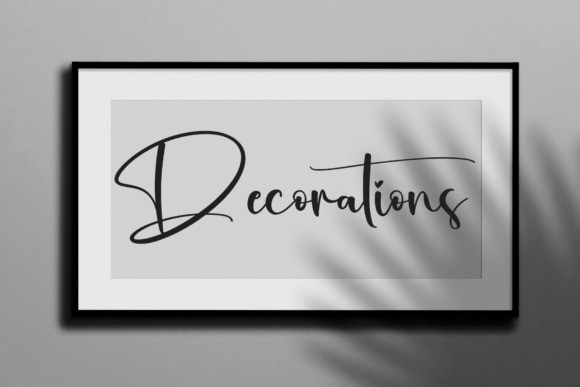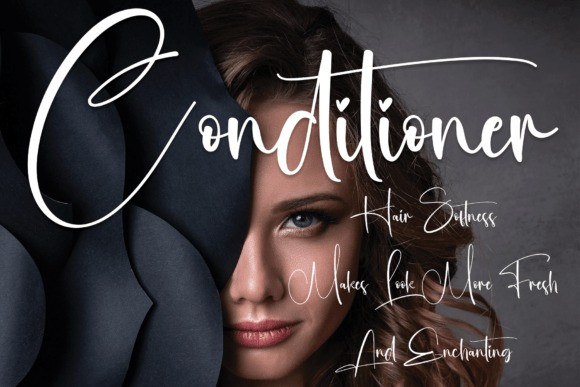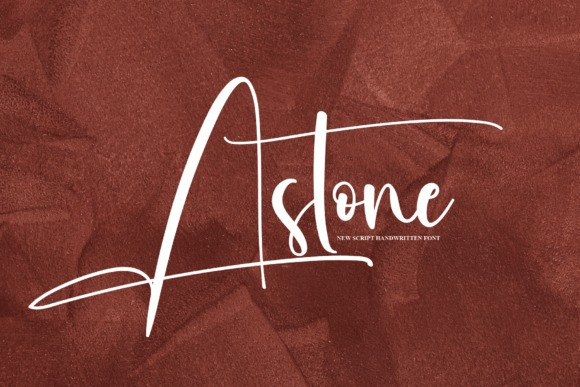
Astone Script Font
Astone Script Font, is a delicate and well-rounded handwritten font, perfect for crafty projects that need authentic typography! Use it for wedding invitations, birthday cards, personal branding, elegant logos, and more, and your designs will stand out from the competition!